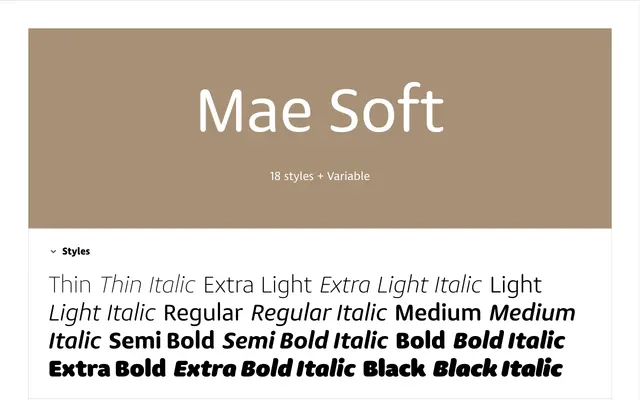
Mae Soft
Lettermin · Ermin Međedović · 2025
A rounded sans-serif in nine weights with full italics and variable font support, designed for warm, approachable branding work.
Released in December 2025 by Ermin Međedović, Mae Soft is the softer sibling of the Mae family, built around generous curves, rounded terminals and open apertures that lend it an organic, tactile quality. Nine weights from Thin to Black each carry matching italics, and the family ships as variable fonts covering both the upright and italic axes. The character set is broad, covering Latin-based languages with small caps, four figure styles, discretionary ligatures, circled numerals and a range of pictographic extras.
A geometric sans-serif with fully rounded terminals and open apertures throughout, placing it firmly in the rounded sans subcategory distinct from conventional grotesque or humanist cuts.